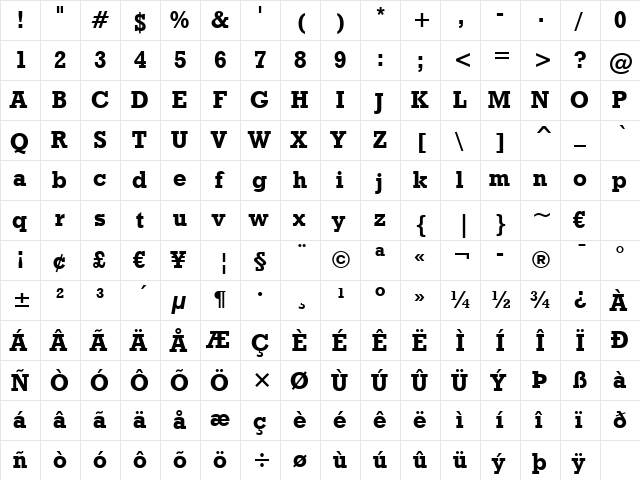
GeoSlb712 Md BT Bold
Design Context for GeoSlb712 Md BT Typeface
GeoSlb712 Md BT is a composed and adaptable typeface that performs quietly and consistently across a wide range of design contexts. Its bold stroke weight gives it real presence on the page.